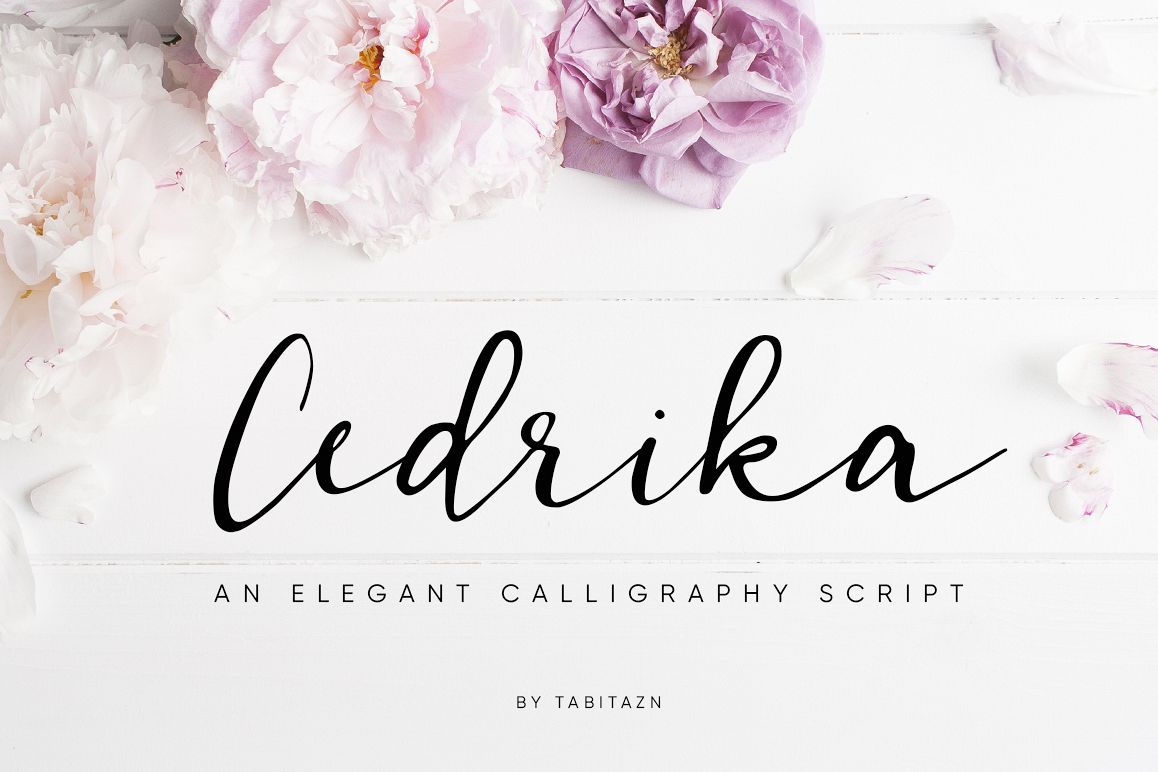
Created By Tabitazn
Cedrika script
cedrika
I would like to introduce you **Cedrika** – an elegant calligraphy script. **Cedrika** will give to your work artistic & handmade feel. Great for various kinds of your projects – branding, logo, wedding announcements, greeting cards, invitations, T-shirts etc. Include standard characters, lowercase, uppercase, numbers, punctuation, tt ligature and a lot of international characters (please see the glyph chart).
Cedrika script example image 1
Cedrika script
By Tabitazn